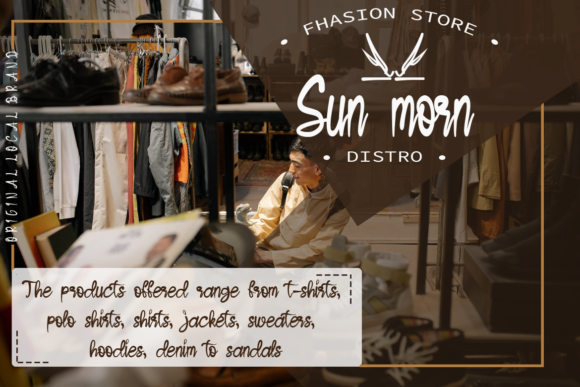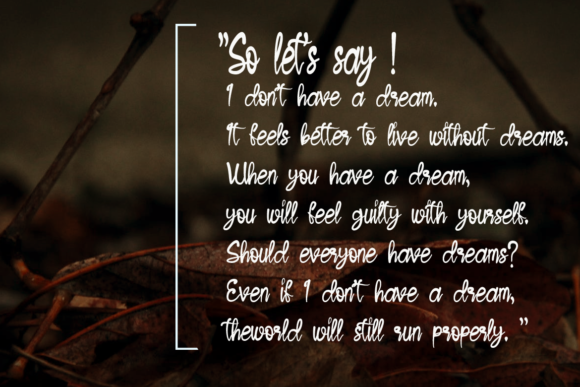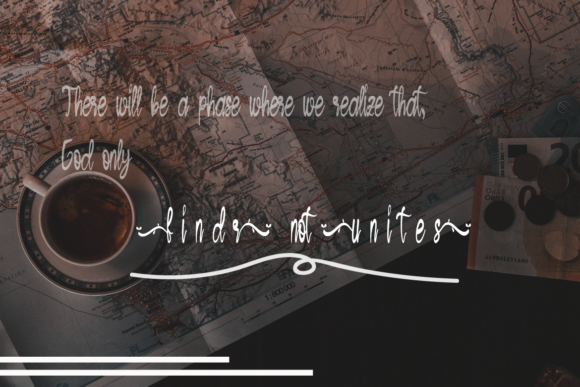
Introduction to Jendra Font
Have you ever been working on a creative project, pouring your heart and soul into it, only to be stopped in your tracks by a lack of the perfect font? It’s a frustrating feeling, but one that many designers can relate to. That’s why we’re excited to introduce you to the Jendra Font, a beautiful handwritten font that’s sure to elevate your designs to the next level.
With its unique feel and stunning impact, the Jendra Font is a game-changer for designers. Whether you’re working on a branding project, a website, or a social media campaign, this font is sure to bring your creative vision to life. And the best part? It’s PUA encoded, making it easy to access all of the amazing glyphs and ligatures that come with it.
Key Features of Jendra Font
- High-quality font designed for creative projects, ideal for use in graphic design, digital art, and publishing.
- Translucent background option for a unique, layered look, perfect for adding depth to designs and creative projects.
- High-resolution design (up to 300 DPI) for crisp, clear text in both print and digital applications.
- Designed with a modern aesthetic, making it a versatile design resource for a wide range of creative projects.
- Perfect for use as a design element in digital art, graphic design, and publishing, or as a standalone font for creative projects.
Honest Review: Jendra Font
As a designer, I’m always on the lookout for high-quality design resources to elevate my creative projects. Recently, I stumbled upon the Jendra Font, and I’m excited to share my honest review with you.
- ✨ Its high-quality design ensures a crisp and clear appearance, even on digital screens.
- ✨ The font’s versatility makes it suitable for a wide range of creative projects, from branding to editorial content.
- ⚠️ Some users may find the font’s style a bit too modern or trendy, which may not suit every design aesthetic.
Overall, I’m impressed with the Jendra Font’s potential to elevate my creative projects. Its high-quality design, versatility, and free download make it a valuable resource for designers. While it may have some limitations, I believe it’s worth considering for your next design project.
Tips for Getting the Most Out of Jendra Font
Use Jendra Font for creative projects such as logos, posters, and social media graphics. Experiment with different font sizes and styles to add visual interest to your design. You can also use the font in combination with other design resources to create a unique and eye-catching design.
Jendra Font is commonly used for creative projects such as branding, advertising, and digital marketing. It is also used in educational and non-profit organizations to create eye-catching and professional-looking materials.
Alternatives to Jendra Font